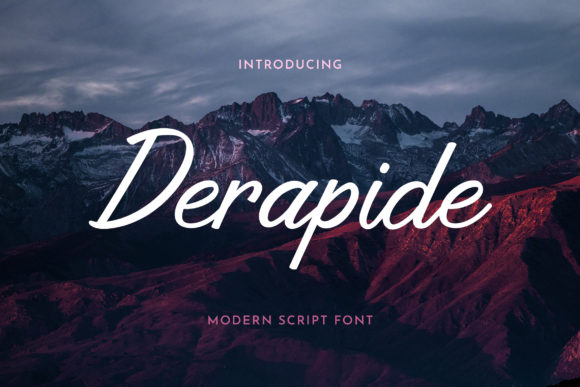
Unleash the elegance and charm of your coffee brand with Derapide Font, the captivating script font that exudes sophistication and creativity. Inspired by the allure of coffee shops and the aromatic allure of freshly brewed beans, Derapide captures the essence of passion and artistry that defines the coffee experience.
With its graceful curves and delicate strokes, Derapide breathes life into your brand's identity. Each letter dances across the page, evoking a sense of refinement and allure that will leave a lasting impression on your customers. Whether you're crafting logos, packaging designs, or social media graphics, Derapide elevates your brand to new heights of sophistication.
Step into a world of boundless creativity with Derapide, the font that transforms ordinary words into captivating works of art. Its versatility knows no bounds, effortlessly adapting to a myriad of design styles, from classic and timeless to modern and edgy. Let your imagination run wild as you explore the endless possibilities that Derapide offers, creating designs that resonate with your audience and leave them spellbound.
Experience the magic of Derapide, the font that ignites passion and fuels creativity. Its unique charm adds a touch of personality to your designs, captivating your audience and forging an unbreakable connection between your brand and their hearts. As they encounter your designs adorned with Derapide's enchanting characters, they will be captivated by its beauty and drawn into the world of your brand, eager to explore all that you have to offer.